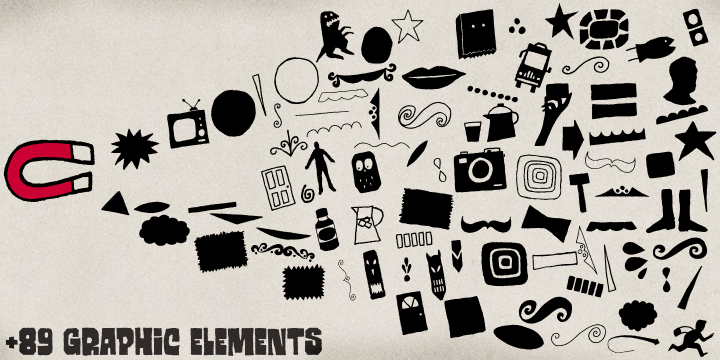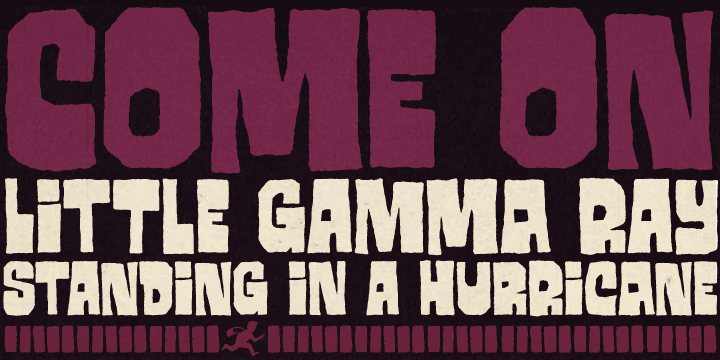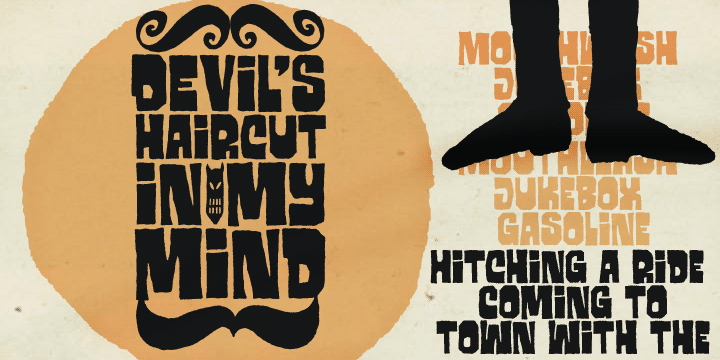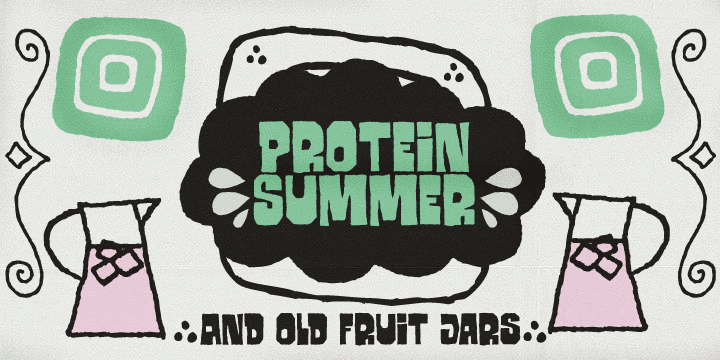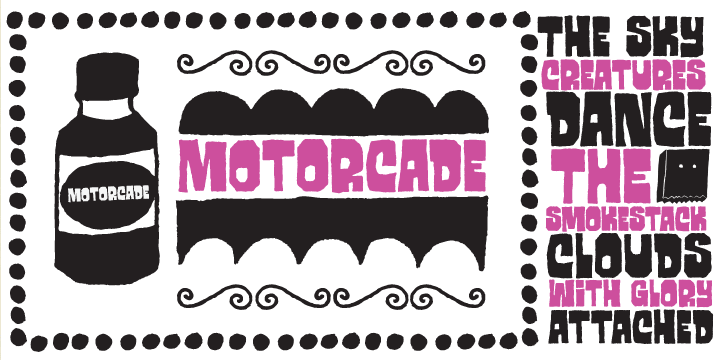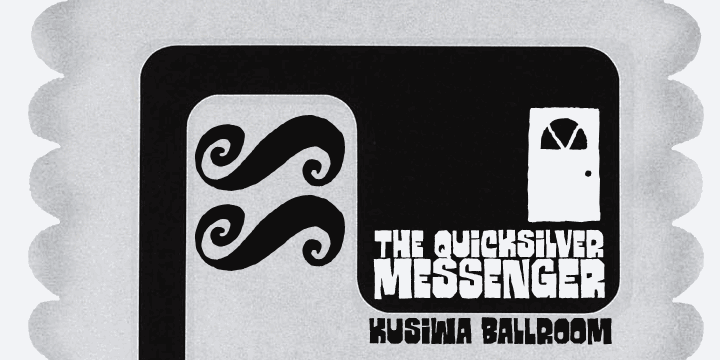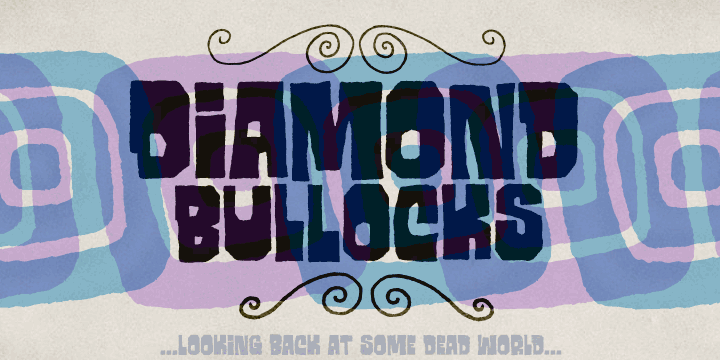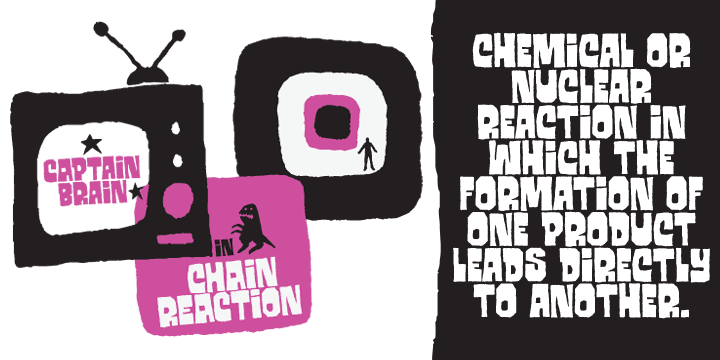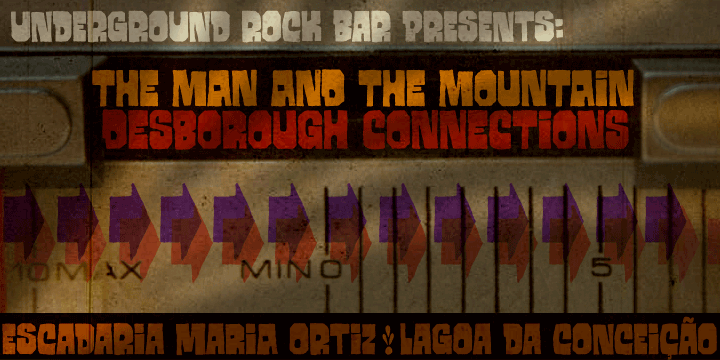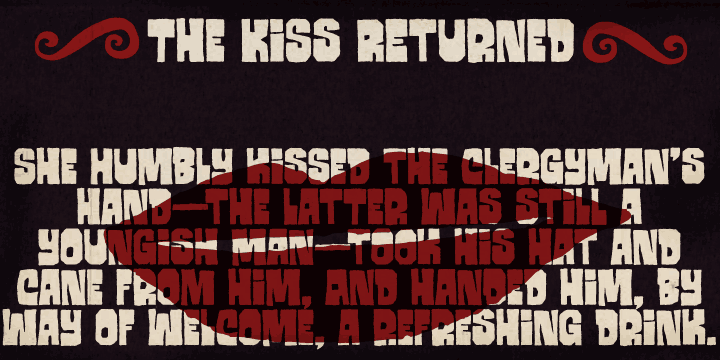
Manicuore is a display font published by PintassilgoPrints.
Manicuore is a hand-drawn typeface inspired on Italian movie posters by the prolific poster artist Symeoni (a.k.a. Sandro Simeoni). Being a talented and skilled painter, portraitist and illustrator, Symeoni enjoyed a long and fruitful career and was remarkably productive during the sixties and seventies. He counts over 3,000 works to his credit, which truly fed the imagination of several generations.
This all-caps font brings different lettershapes on upper and lower case slots, which work as alternates, providing handy options to spice up your compositions. When using it in OpenType savvy applications just turn on contextual alternates feature to instantly cycle lettershapes – a one click way for adding spontaneity while also preventing neighbor double letters from using the same glyph. To put the icing on the cake, Manicuore brings a cool set of graphic elements that match the typeface look and feel. This is for sure an inspiring toolbox for creative lettering designs.